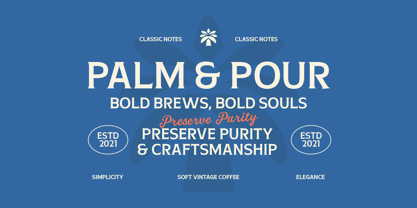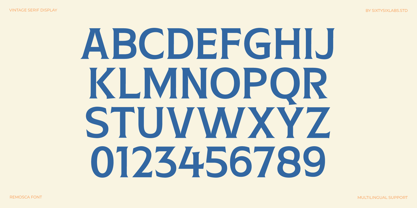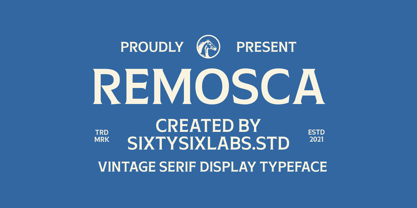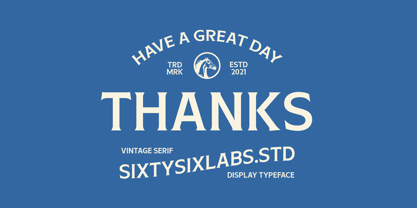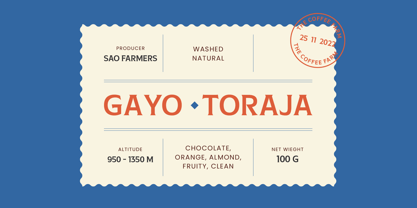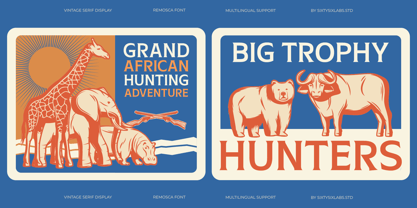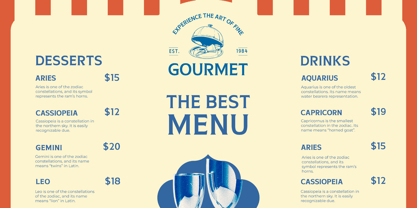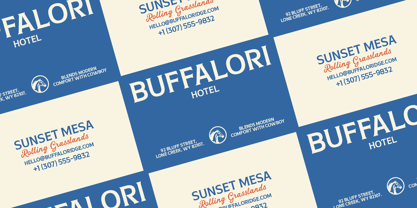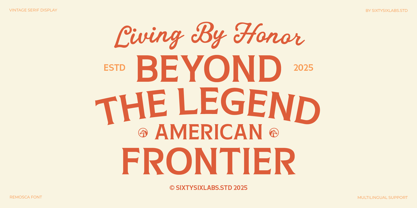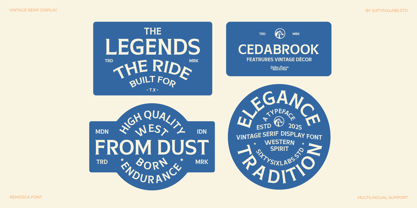
Remosca
von Sixtype Foundry
Remosca is a vintage serif display typeface inspired by classic western signage, retro packaging, and timeless Americana typography. It features bold, high-contrast letterforms, elegant curves, and refined serif details, delivering a strong nostalgic character while remaining clean and versatile for modern design projects. This font is perfect for logos, branding, coffee packaging, whiskey labels, apparel, posters, editorial headlines, and heritage-inspired visual identities. Remosca combines rustic charm with premium craftsmanship. Its decorative vintage feel and bold presence make it ideal for designers seeking an authentic retro serif with a confident and memorable personality, enhancing any creative endeavor with its unique style.
Sixtype Foundry, an independent studio based in Indonesia, delights in exploring diverse design styles and actively fosters creativity and resource exploration. Fueled by passion, we consistently push typographic boundaries, establishing ourselves as an innovative hub in the evolving design scene. Our goal is simple yet bold, to redefine the art of typeface design, inspiring designers to craft extraordinary visual stories.